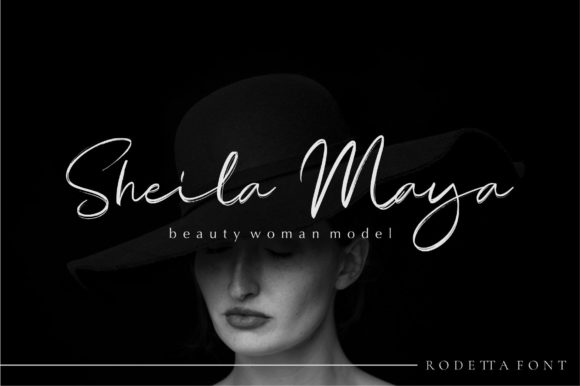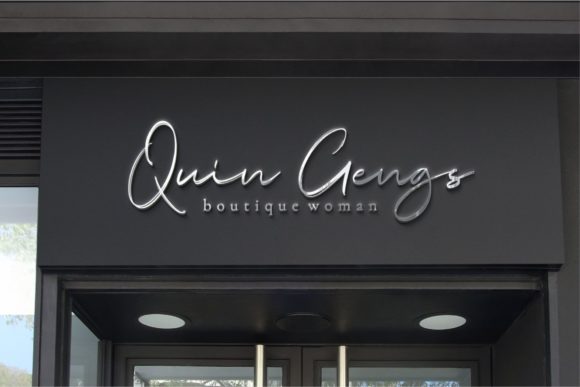
Rodetta Font
db-ku.com - Script & Handwritten -- Rodetta is a brushed script font. It is defined by smooth curves and is perfect for fashion branding or editorial designs. Add it confidently to your projects, and you will love the results.